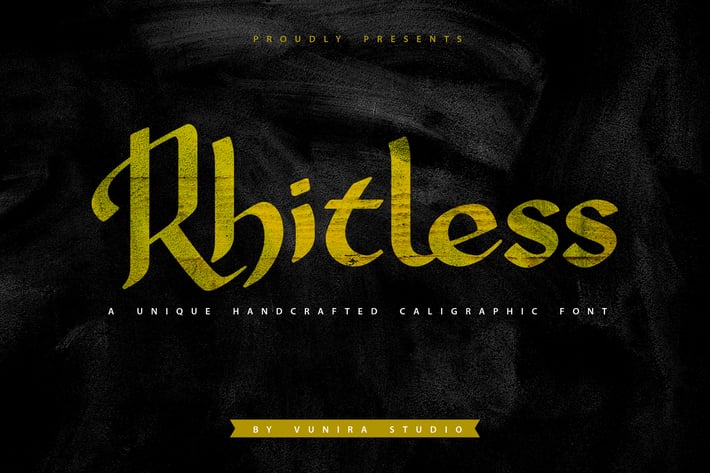
Rhitless | Handcrafted Caligraphic Font
Rhitless | Handcrafted Caligraphic Font with a calligraphy style, So beautiful on invitation like greeting cards, branding materials, business cards, quotes, posters, and more!